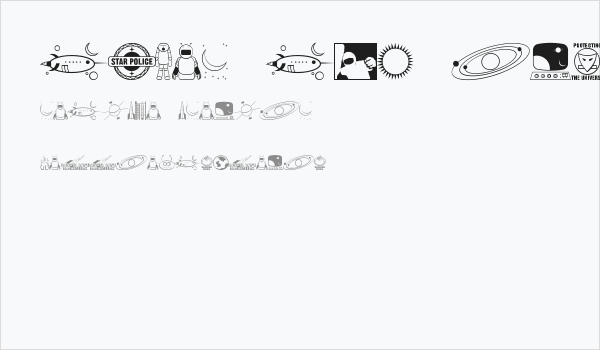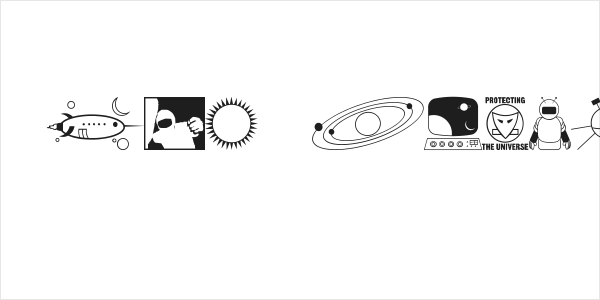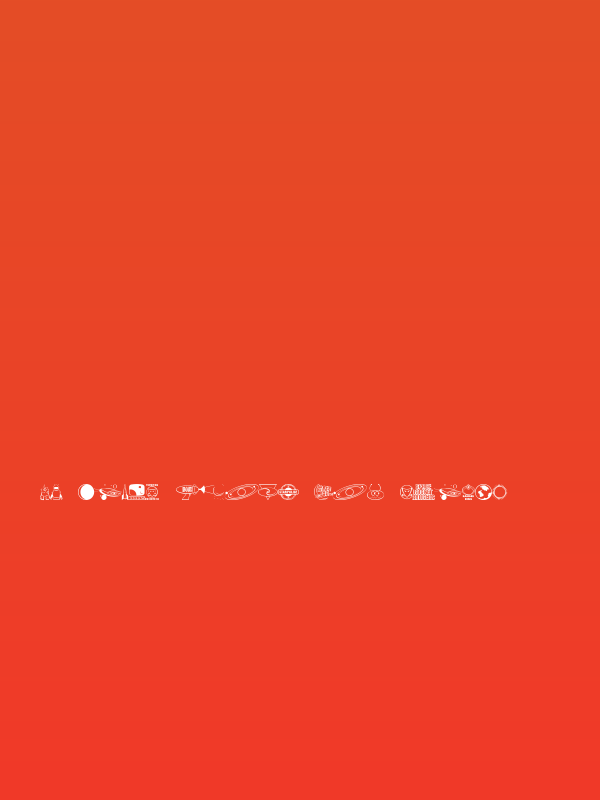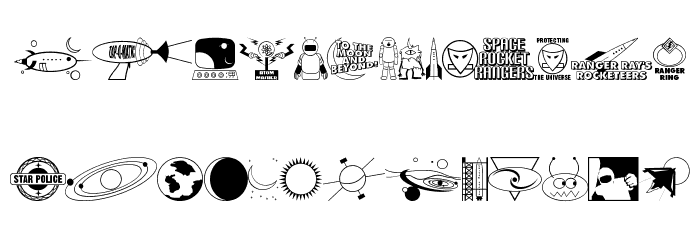
Ranger Ray's Rocketeers JL Font
| Kategorien | Retro |
| Gesamtstil | Vintage |
| Anwendungsfall | Decorative elements, Illustrations |
| Vorgeschlagene Projekte | Ideal for creating themed posters, party invitations, or educational materials about space. It could also be used in graphic novels or comics with a sci-fi theme. |